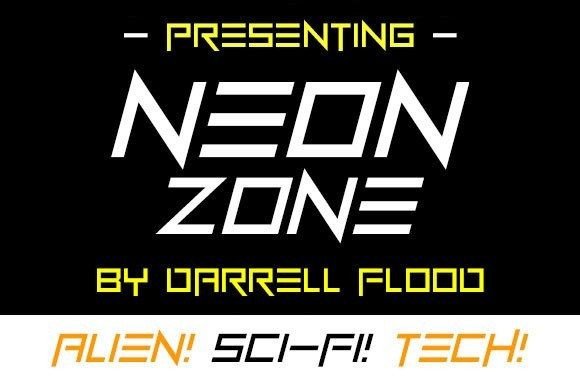
Introduction to Neon Zone Font
Have you ever stared at a blank canvas, desperate for the perfect design element to bring your creative project to life? That’s where the Neon Zone Font comes in – a futuristic, square-based font that screams high-tech and alien themes. Its striking robot-like style is sure to electrify your design and transport your audience to another world.
As a valuable design resource, the Neon Zone Font offers unparalleled versatility, allowing you to experiment with various layouts and color combinations. Its clean, modern aesthetic makes it a perfect fit for futuristic concepts, sci-fi designs, and even cyberpunk-inspired art. And the best part? It’s available for free download, making it an accessible and high-quality addition to your design arsenal.
Key Features of Neon Zone Font
- High-quality design resource ideal for creative projects, including digital art, graphic design, and web development.
- Features a unique, eye-catching style with a transparent background, making it perfect for adding a neon effect to your designs.
- Includes a wide range of characters, including uppercase and lowercase letters, numbers, and special characters.
- High-resolution design, suitable for use in high-definition displays and print materials, ensuring crisp and clear text.
- Perfect for creating a futuristic or retro-futuristic look in your designs, adding a touch of neon-inspired style to your creative project.
Honest Review: Neon Zone Font
I recently had the chance to try out the Neon Zone Font, and I must say, it’s a pretty interesting addition to my design resource library. As a designer, I’m always on the lookout for unique and eye-catching fonts that can elevate my creative projects.
- ✨ The font has a very distinct and futuristic feel to it, perfect for projects that require a touch of neon-lit ambiance.
- ✨ The high quality of the font is evident in its crisp and clean design, making it suitable for a wide range of design applications.
- ⚠️ The font doesn’t support transparent backgrounds, which can be a bit restrictive when working on projects that require layered designs.
- ⚠️ The font’s weight and style options are somewhat limited, which can make it challenging to achieve the desired level of customization.
Overall, I’d say the Neon Zone Font is a solid addition to any designer’s library, but it’s not without its limitations. With a little creativity and workarounds, it can be a valuable resource for designers working on creative projects that require a touch of neon flair.
How to Use Neon Zone Font
The Neon Zone Font is a high-quality, free download that can add a touch of futuristic elegance to your creative project. This versatile font features a transparent background, making it perfect for a variety of design applications.
Tips for Getting the Most Out of the Neon Zone Font
To get the most out of the Neon Zone Font, try the following:
- Combine the Neon Zone Font with other design elements, such as shapes and graphics, to create a visually appealing composition.
- Use the font in conjunction with a bold, contrasting color to make your text stand out.
The Neon Zone Font is perfect for:
- Creating futuristic and sci-fi themed designs.
- Adding a touch of elegance and sophistication to your branding and marketing materials.
- Designing graphics and visuals for video games and other interactive media.